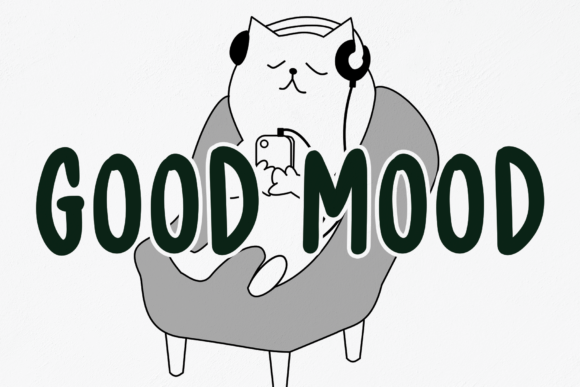
About Good Mood Font
Good mood is a casual and friendly handwritten font. Fall in love with its incredibly versatile style and use it to create spectacular designs!